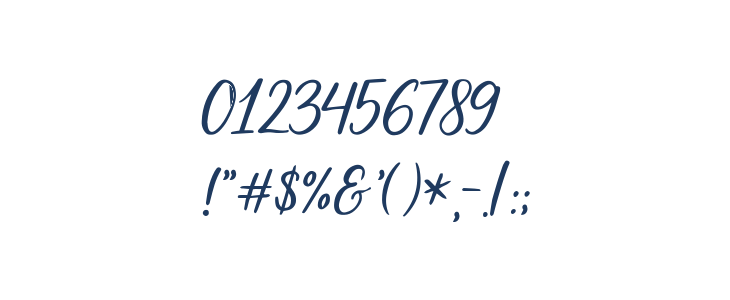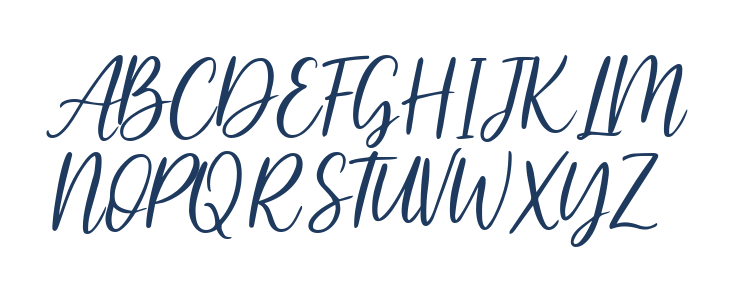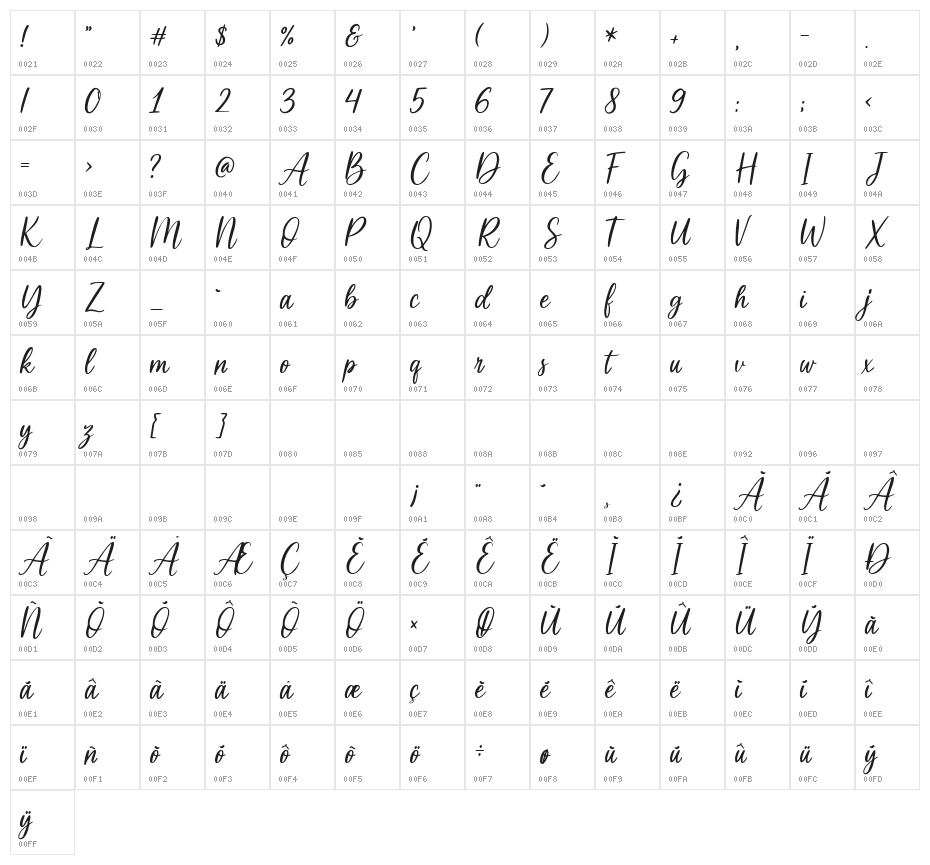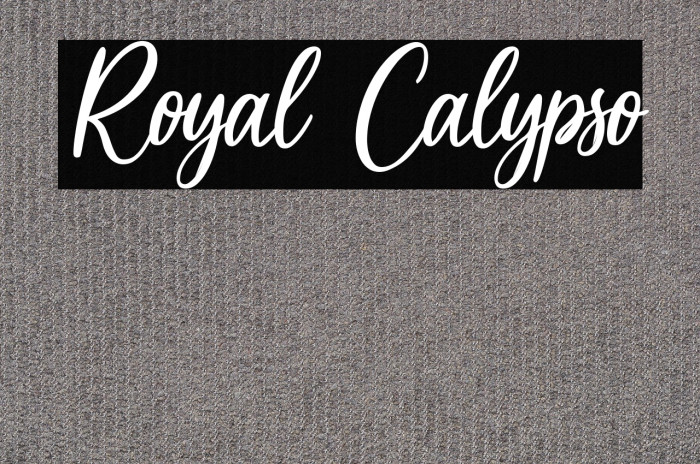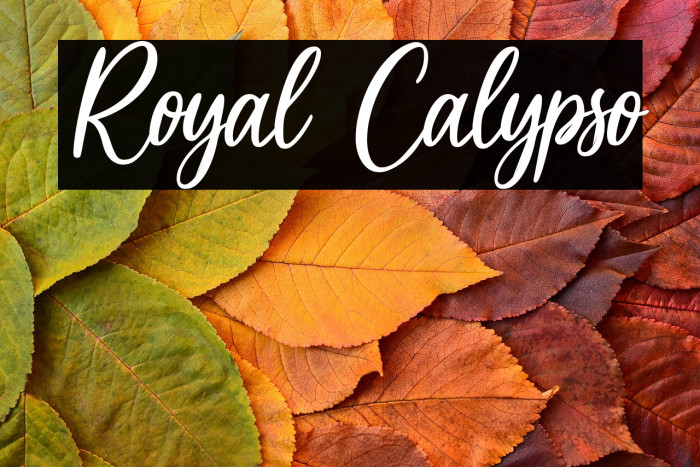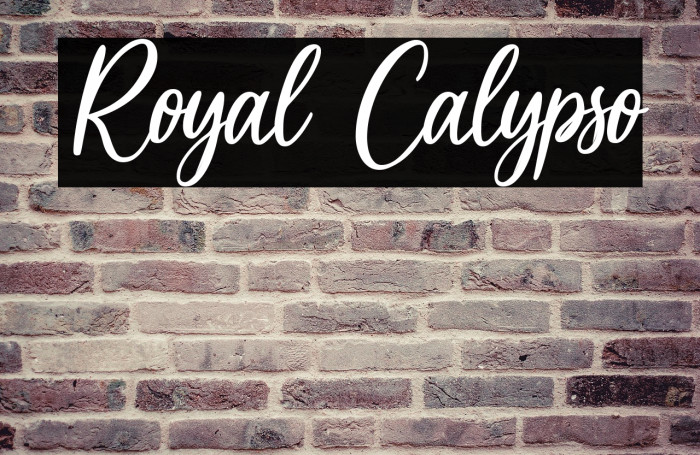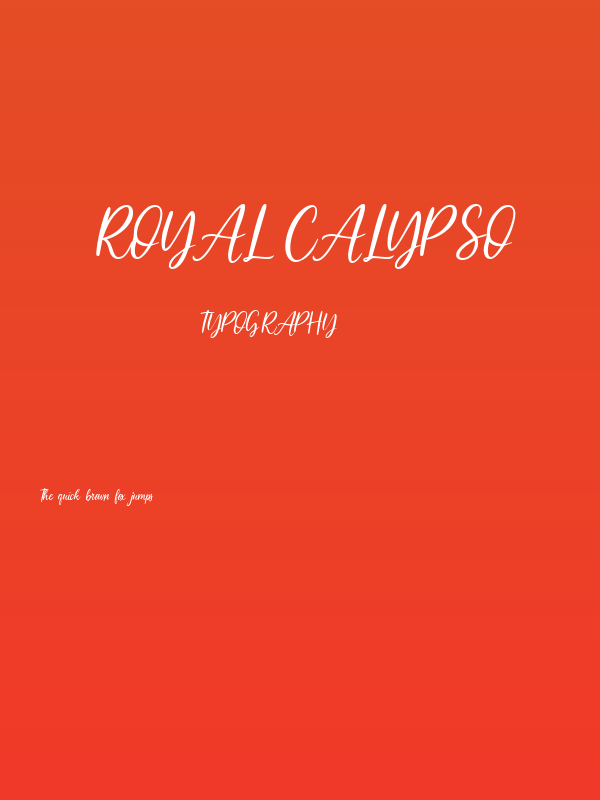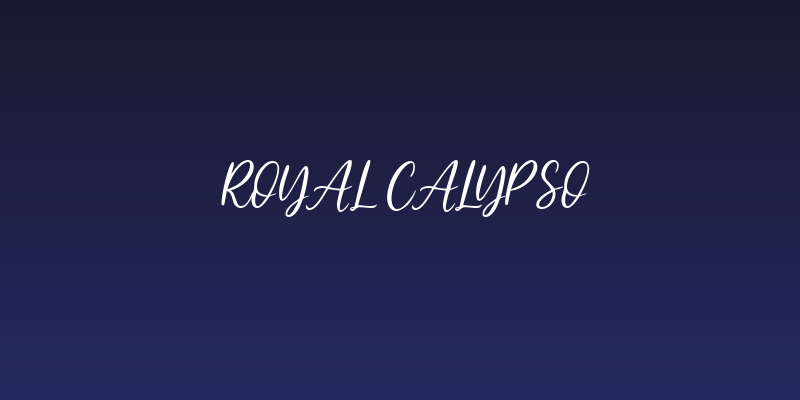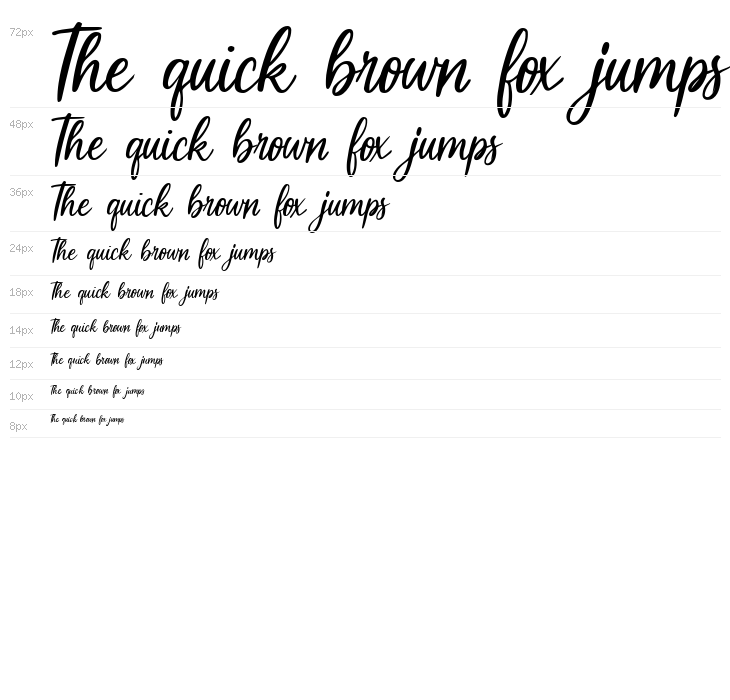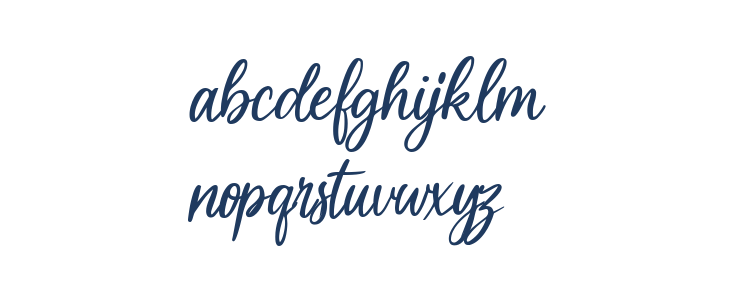
Royal Calypso Font
Royal Calypso Description
A flowing, cursive script font with a handwritten appearance, featuring smooth, connected strokes and a casual yet elegant style. The characters are slightly slanted, with moderate variation in stroke thickness and rounded terminals.
| Overall Style | Decorative, Elegant, Handwritten |
| Use Case | Logos, Headlines, Invitations, Decorative text |
| Proposed Projects | Wedding invitations, greeting cards, branding, social media graphics, personal signatures. |